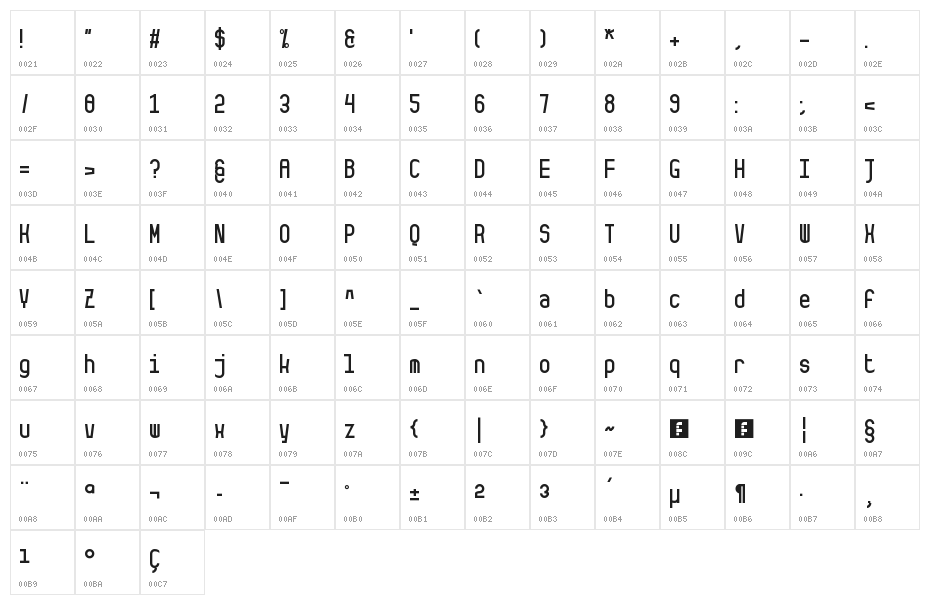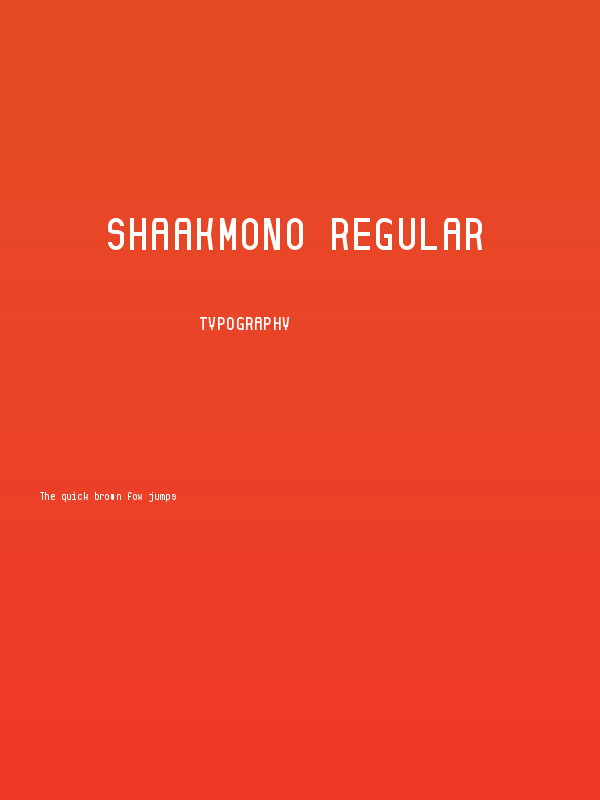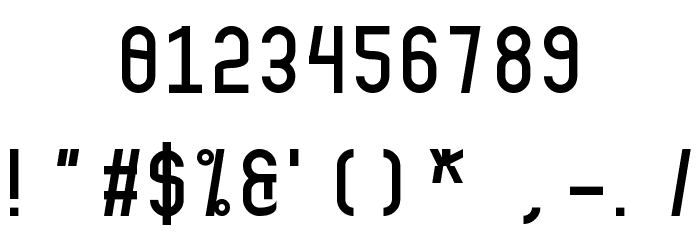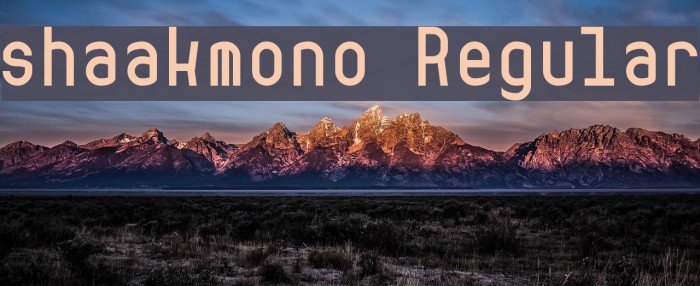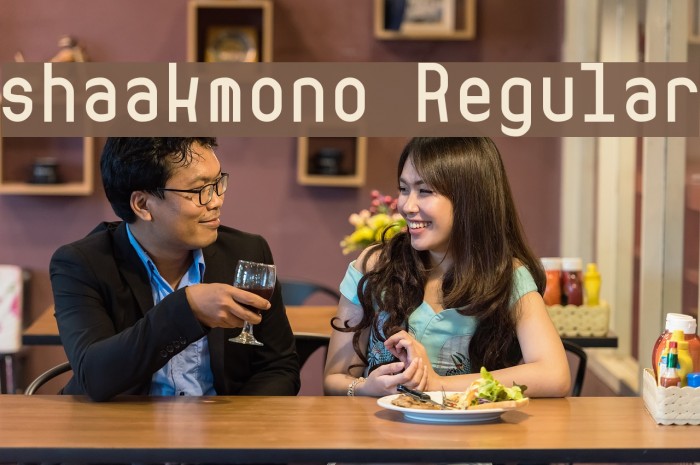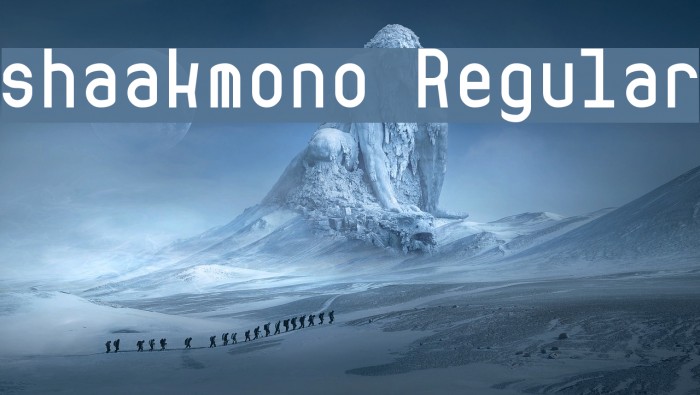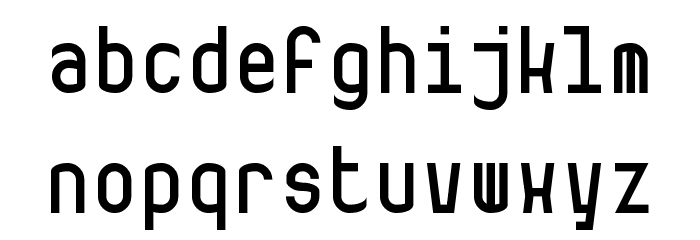
shaakmono Regular Font
shaakmono Regular Description
This typeface features a monospaced design with a modern and clean aesthetic. Each character is uniformly spaced, providing a balanced and organized appearance. The font exhibits a geometric structure with straight lines and minimal curves, giving it a contemporary feel. The uppercase and lowercase letters maintain a consistent height, enhancing readability. The numerals are clear and distinct, making them suitable for data presentation. Special characters are well-defined, adding versatility to the font's usage. Overall, the design is straightforward yet stylish, making it ideal for digital and print media.
| Use Case | Coding, Technical documentation, Minimalist design |
| Proposed Projects | Ideal for coding environments, technical documentation, and minimalist graphic design projects. |